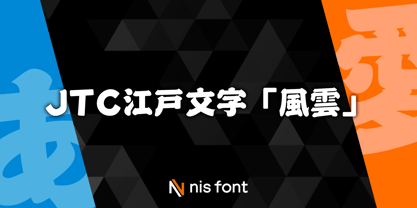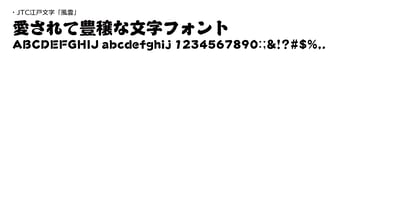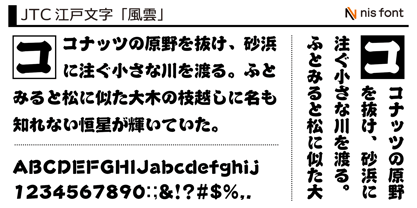
OT-NIS_EDO
by NIS Fonts
The OT-NIS_EDO Font Family was designed by and published by NIS Fonts. OT-NIS_EDO contains 1 styles.
This is a bold Edo-style typeface. Designed with POP (Point of Purchase) applications in mind, it includes custom glyphs that are ideal for use on price cards. The character set consists of kana, kanji, and symbols from JIS Level 1, along with 161 kanji selected from JIS Level 2. Instead of Greek characters from Block 06 and Russian characters from Block 07 of JIS Level 1, specialized symbols have been included in the set. Note: This typeface supports the JIS2004 character set.